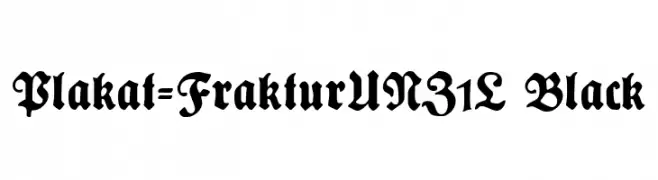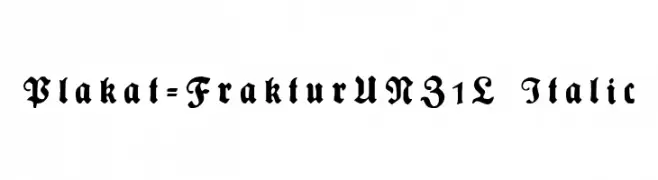
An ornate blackletter font with intricate flourishes and bold strokes.
A bold, decorative Blackletter font with intricate flourishes and strong vertical lines.
A decorative blackletter font with intricate uppercase and bold lowercase letters.
A bold, dramatic Blackletter font with ornate, angular lines and high contrast.
A traditional Blackletter font with ornate, angular letterforms and decorative flourishes.